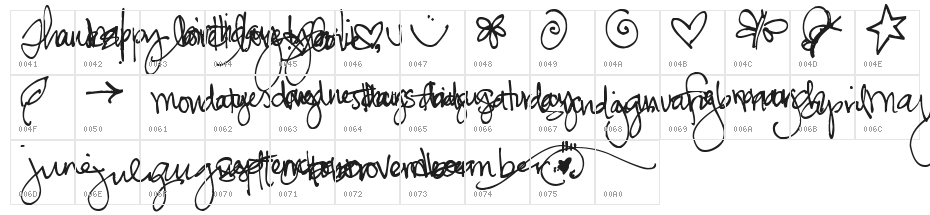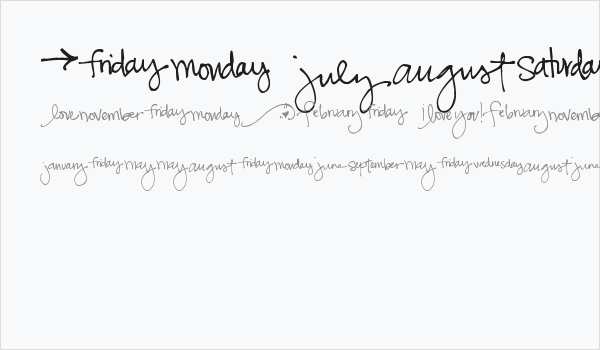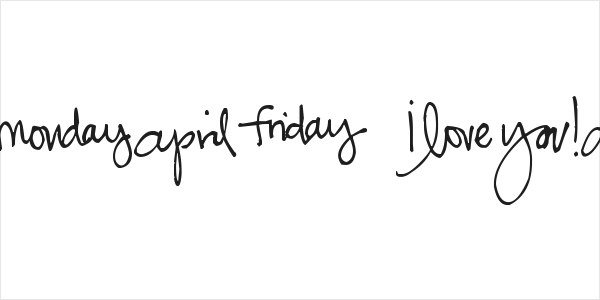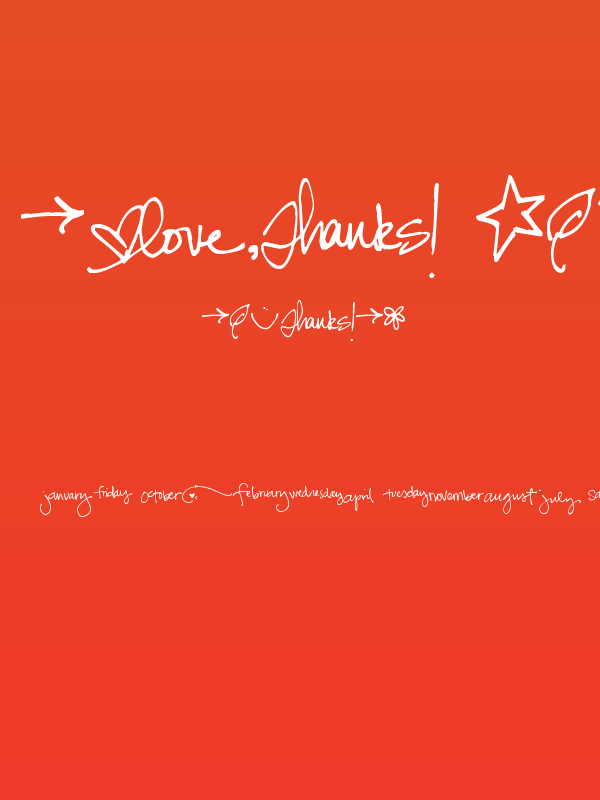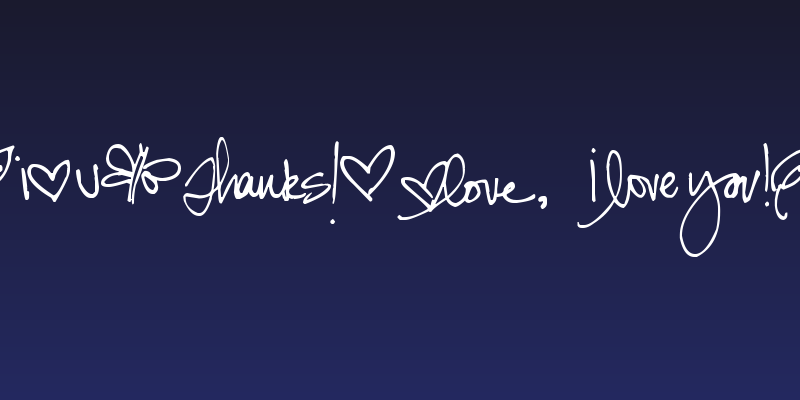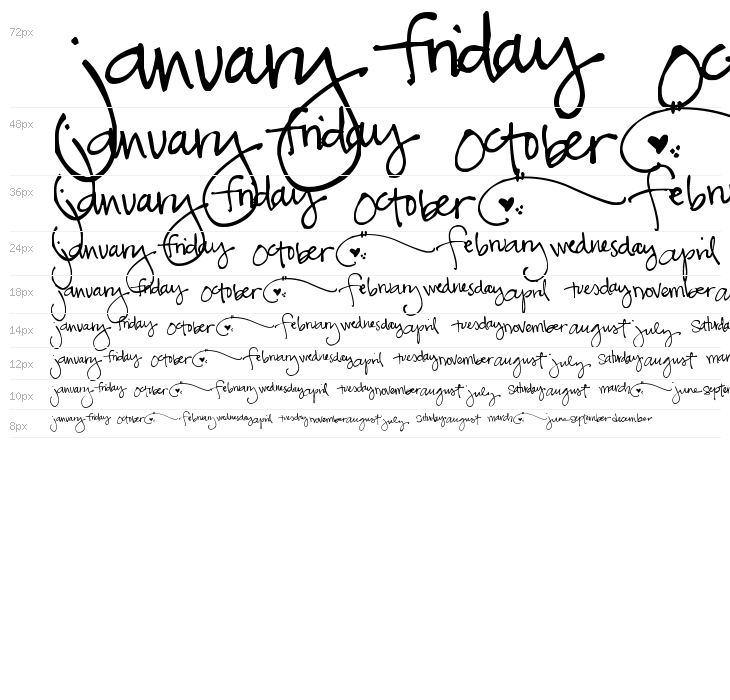
Pea Snoflake Doodles Font
Pea Snoflake Doodles Description
This whimsical and playful font features a handwritten style with a touch of doodle-like embellishments. The characters are fluid and dynamic, with a casual and friendly appearance. The font includes charming decorative elements such as stars, hearts, and swirls, adding a unique and artistic flair. The letters are slightly slanted, giving a sense of movement and spontaneity. This font is perfect for projects that require a personal and informal touch, such as greeting cards, invitations, or playful branding. Its unique style makes it stand out, offering a creative and fun way to convey messages.
| Use Case | Greeting cards, Invitations, Playful branding |
| Proposed Projects | Ideal for greeting cards, invitations, playful branding, and creative projects. |